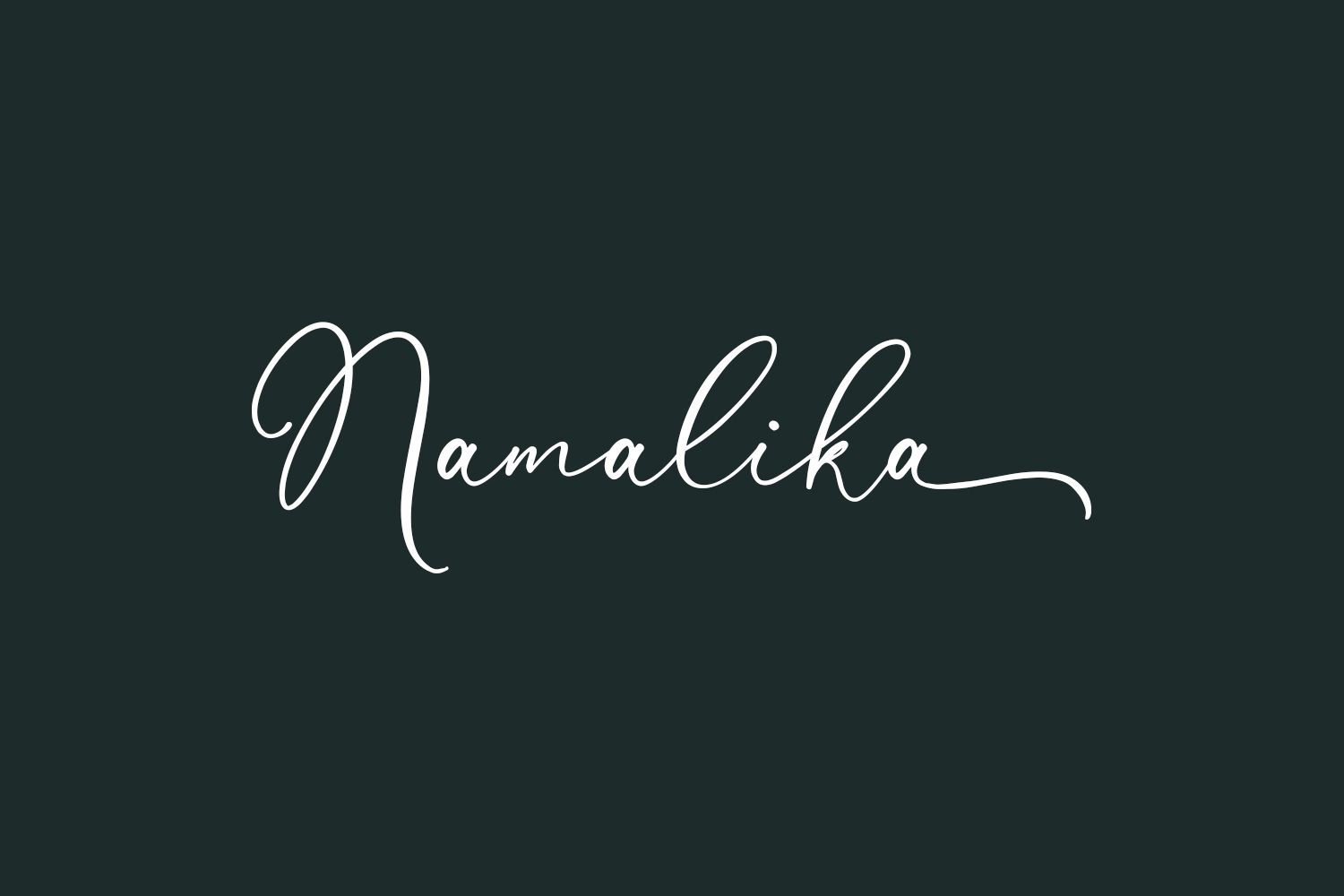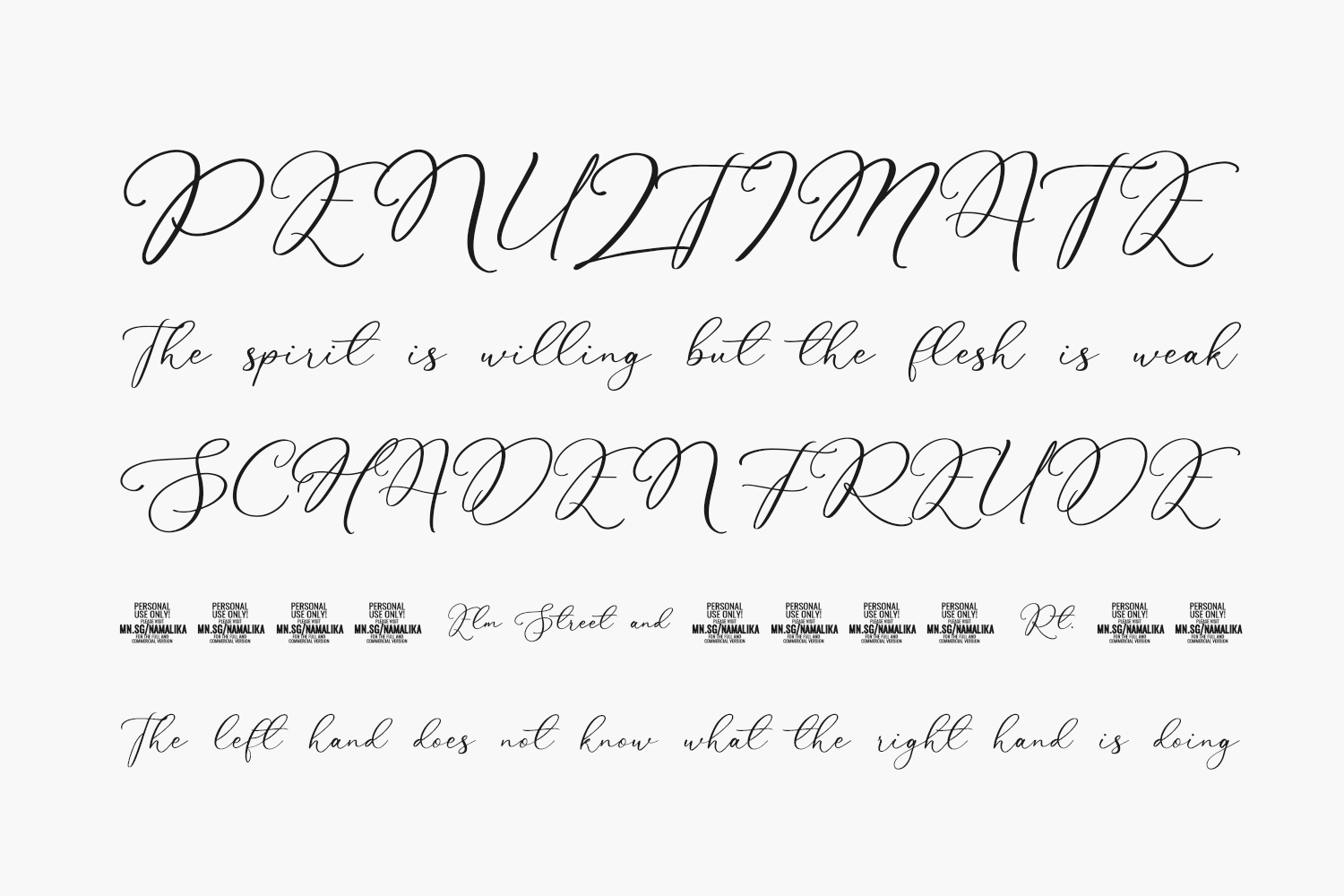
Namalika Free Font Family – a stunning and elegant script font that will elevate any design. With its graceful, flowing lines and classic calligraphic style, this font is perfect for creating beautiful and sophisticated designs. Whether you’re designing a wedding invitation, a luxury brand logo, or a fashion campaign, Namalika will add a touch of elegance and refinement to your work. And the best part? It’s completely free to use, making it an accessible choice for any designer or business. Add a touch of class to your designs with the Namalika Free Font.